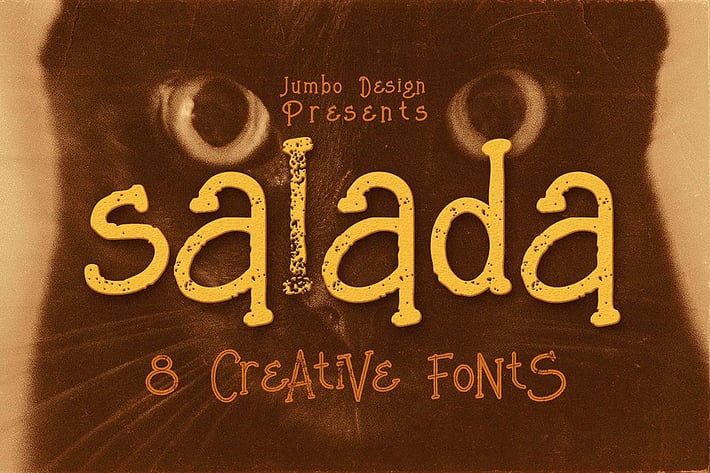
Salada - Funny Style Font
Unique and funny style custom font with 8 styles: regular and grunge, inline and inline grunge, bold and bold grunge, bold inline and bold inline grunge,